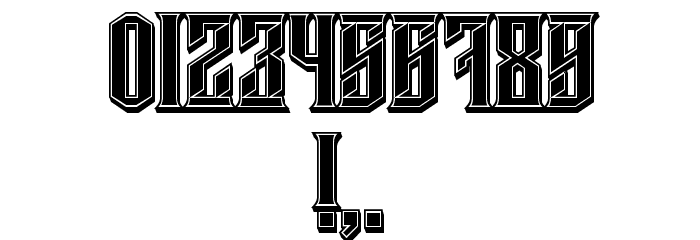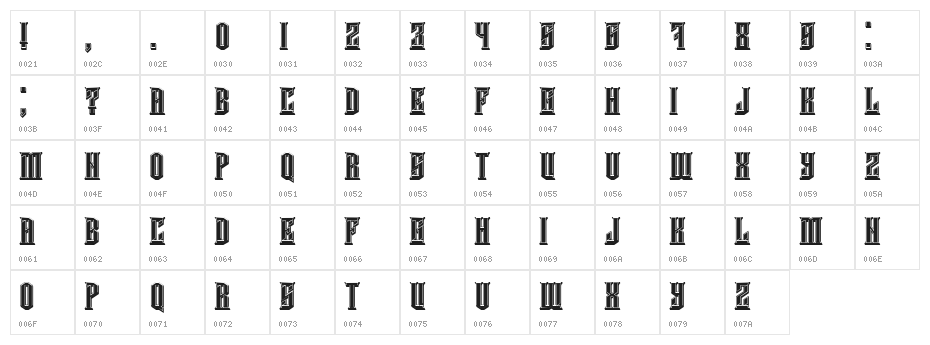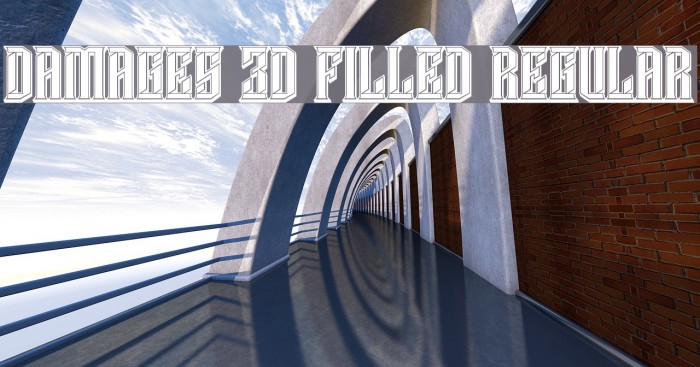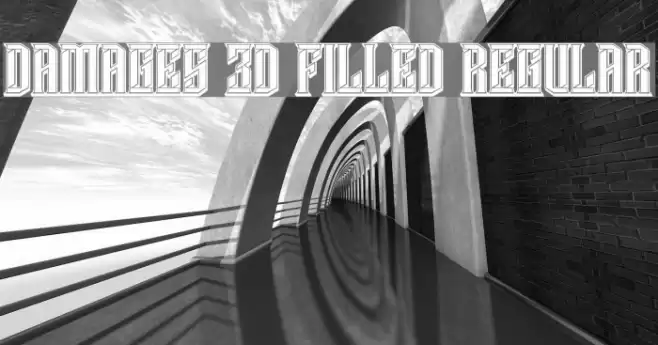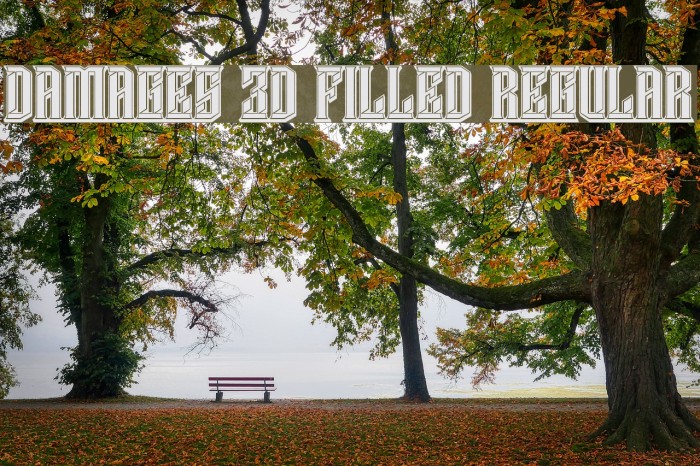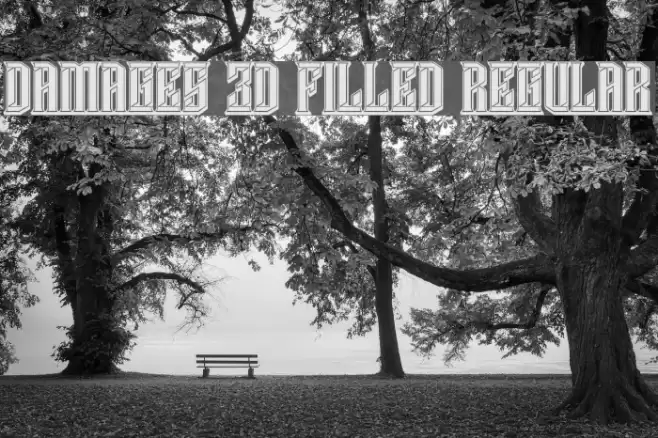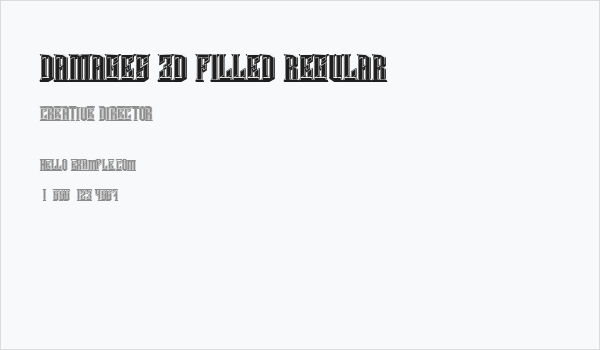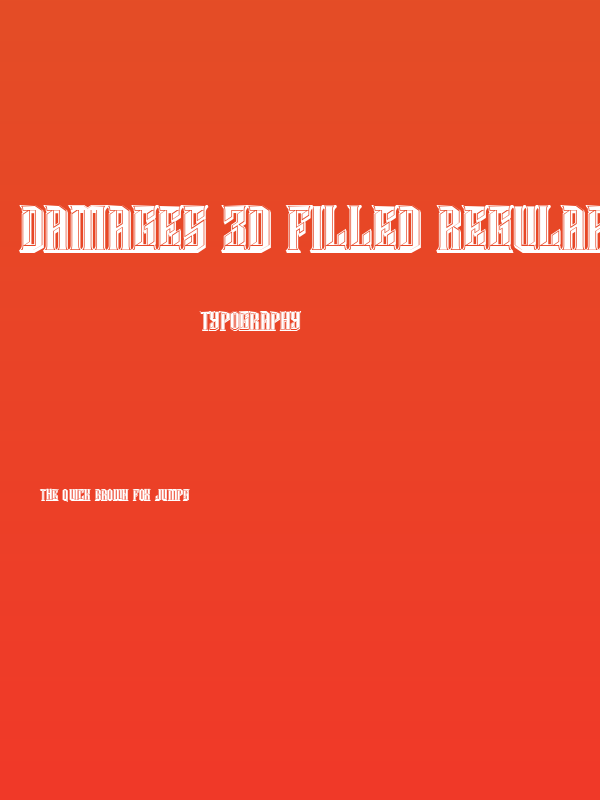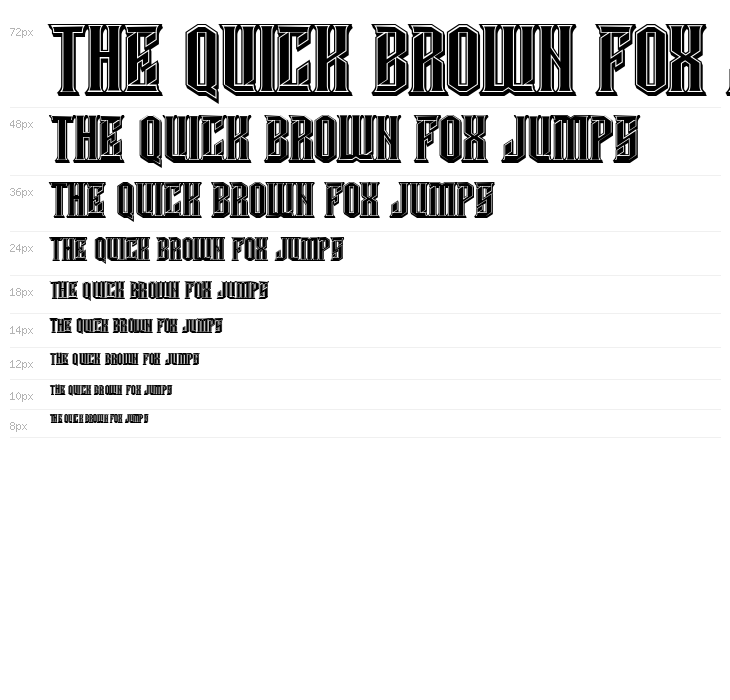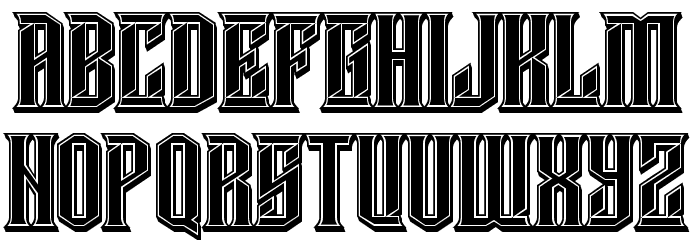
Damages 3D Filled Regular Font
Damages 3D Filled Regular Description
This font features a bold, three-dimensional appearance with a filled design that gives it a striking and impactful look. The characters are outlined with a thick border, enhancing the 3D effect and adding depth. The style is reminiscent of vintage or retro aesthetics, often seen in signage or posters. The uppercase letters are particularly prominent, with sharp angles and a geometric structure that conveys strength and stability. The numbers and special characters maintain the same bold and dimensional qualities, ensuring consistency across all glyphs.
| Proposed Projects | Ideal for use in posters, signage, logos, and any project requiring a strong, eye-catching typeface. |